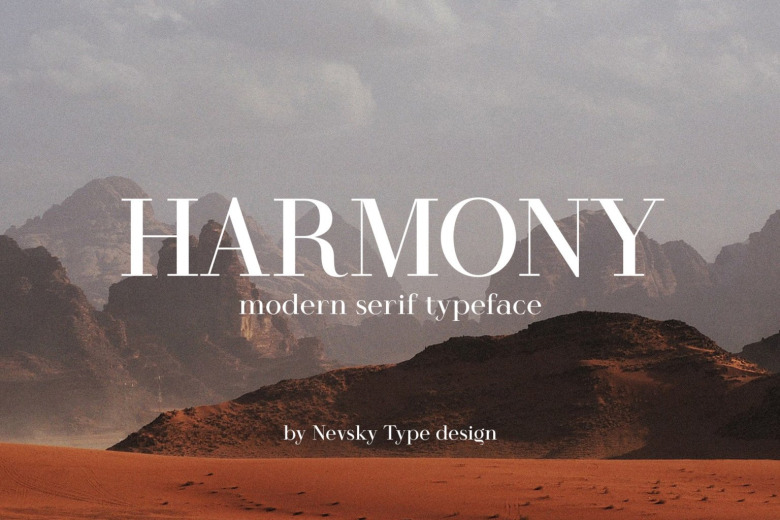
Harmony Font
Harmony is a classic and timeless serif typeface that looks amazing and classy in every context. It will perfect for many project: invitations, postcard, poster, book, advertisements, websites, blog header, logo, branding, magazines, fashion, photography, etc.